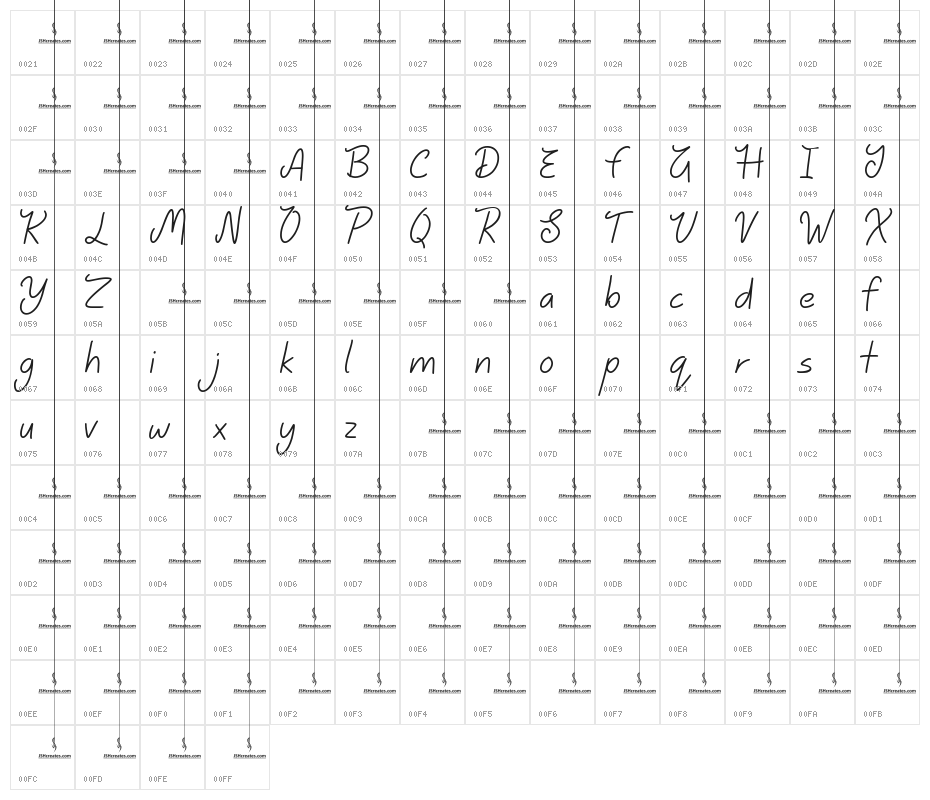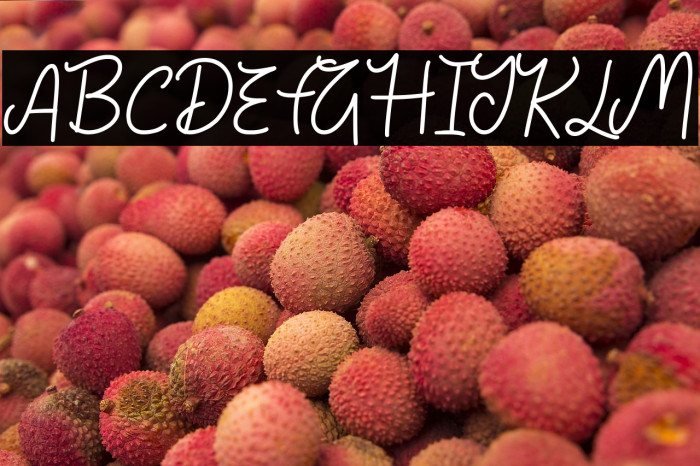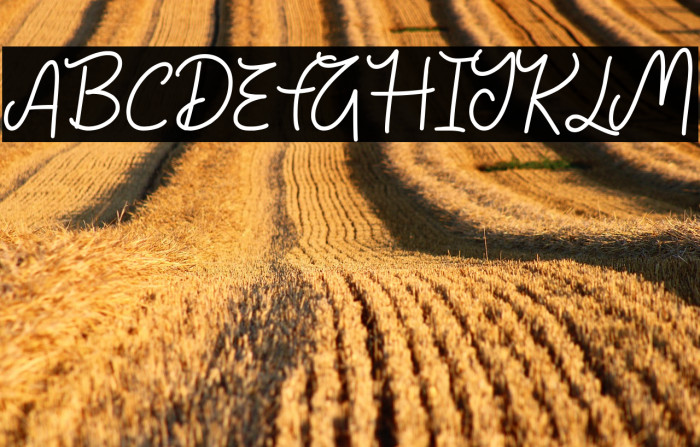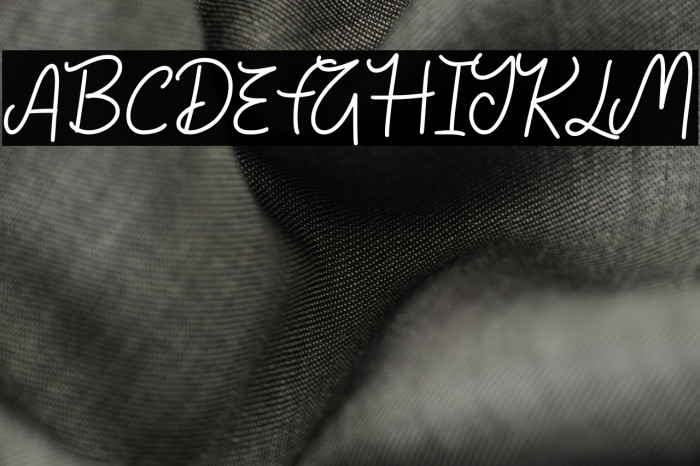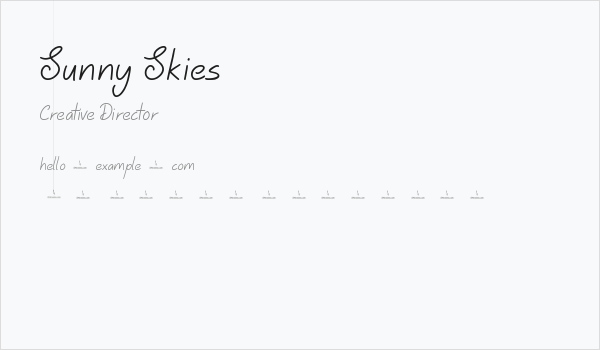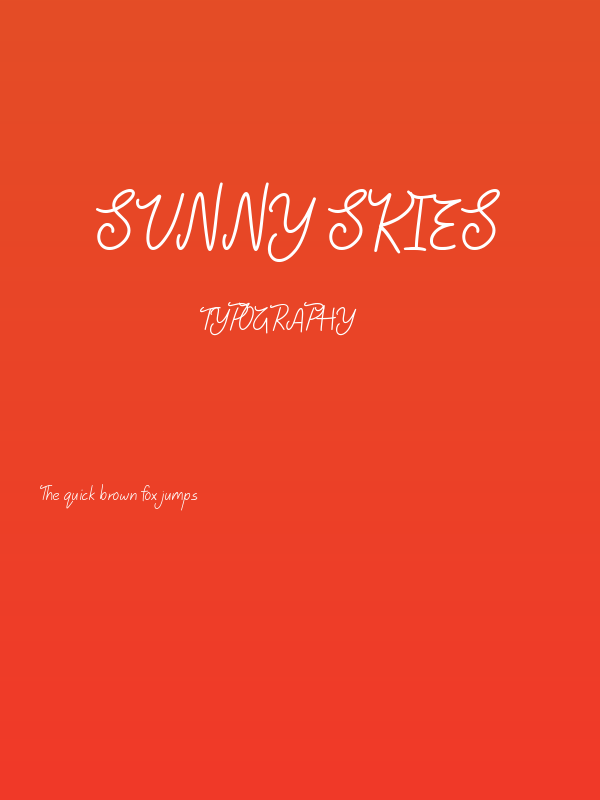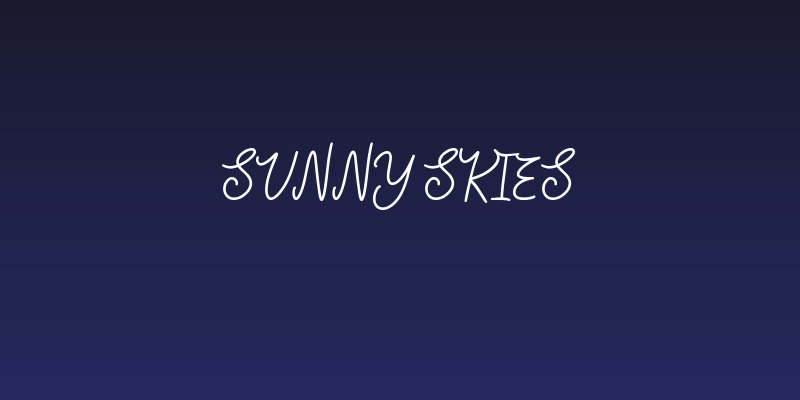
Sunny Skies Font
Sunny Skies Description
This font exudes a casual and friendly handwritten style, characterized by its smooth, flowing lines and slightly slanted characters. The uppercase letters maintain a consistent height, while the lowercase letters exhibit a playful variation in size, adding to the font's charm. The strokes are moderately thick, providing good readability without sacrificing the handwritten feel. The overall appearance is informal and approachable, making it suitable for projects that require a personal touch. The font's design is clean and uncluttered, with a natural rhythm that mimics authentic handwriting.